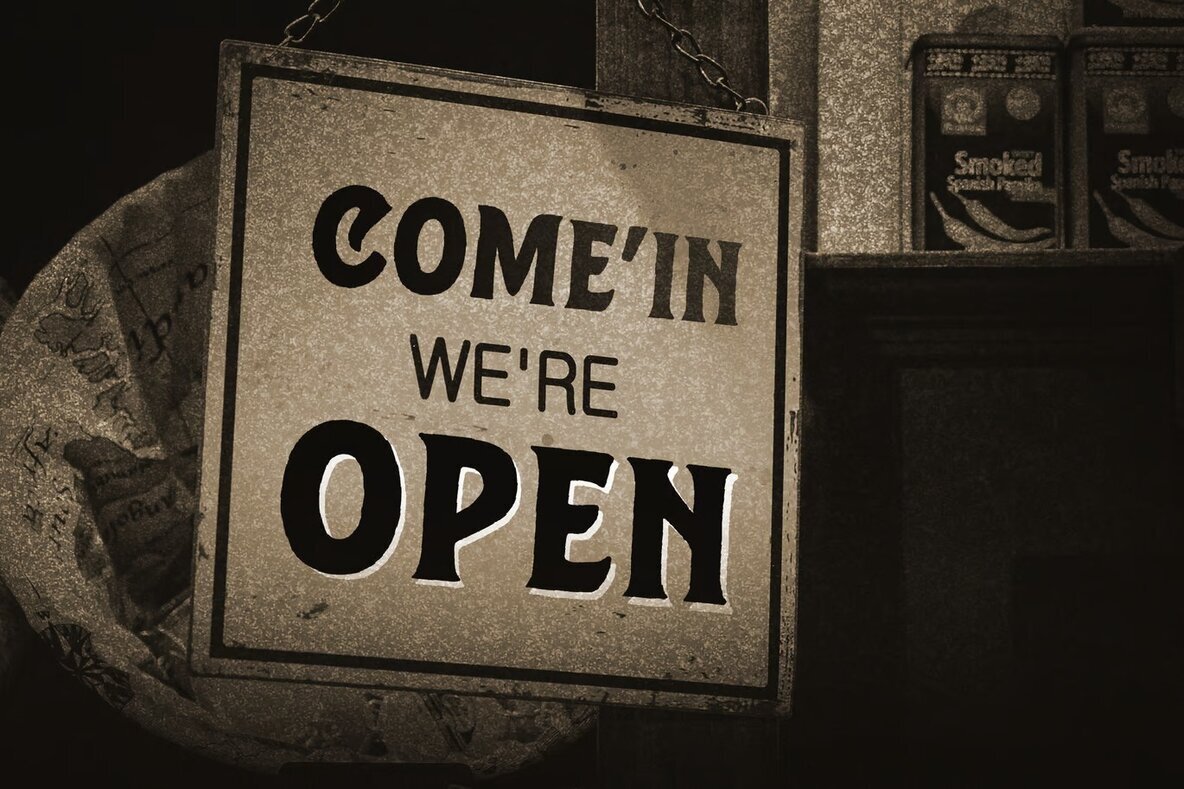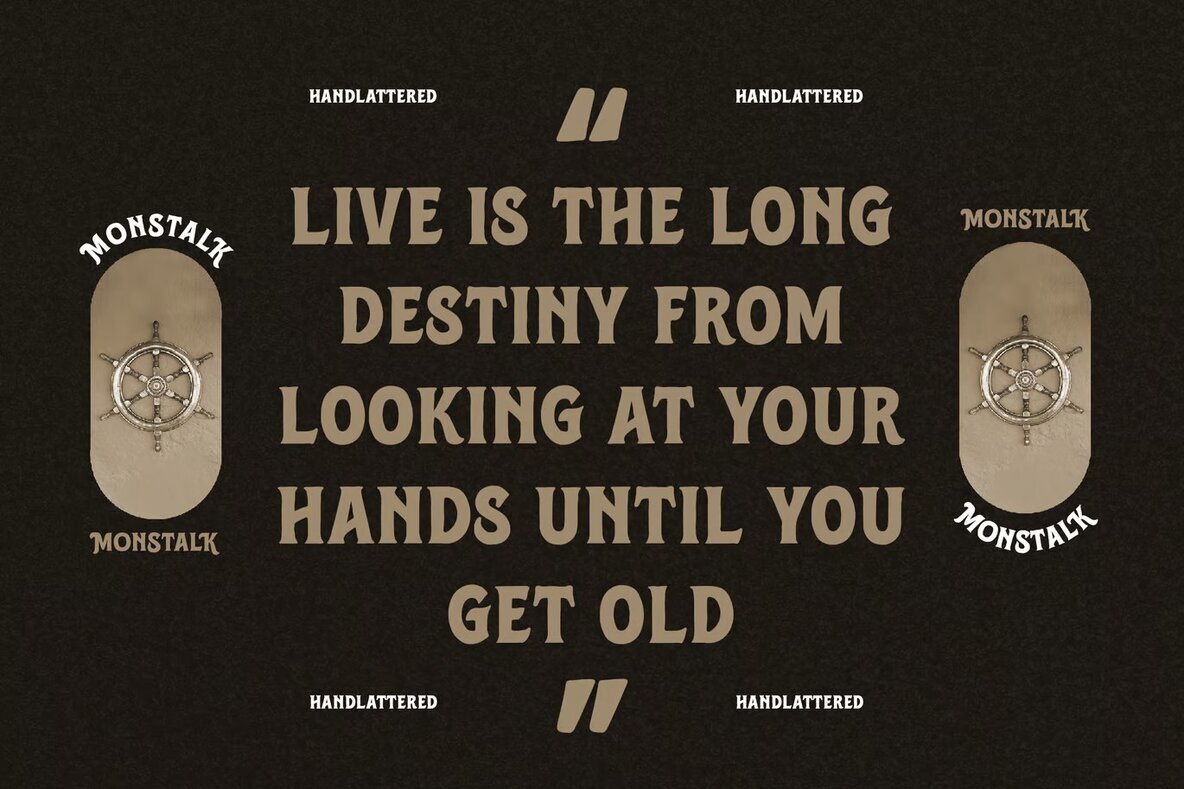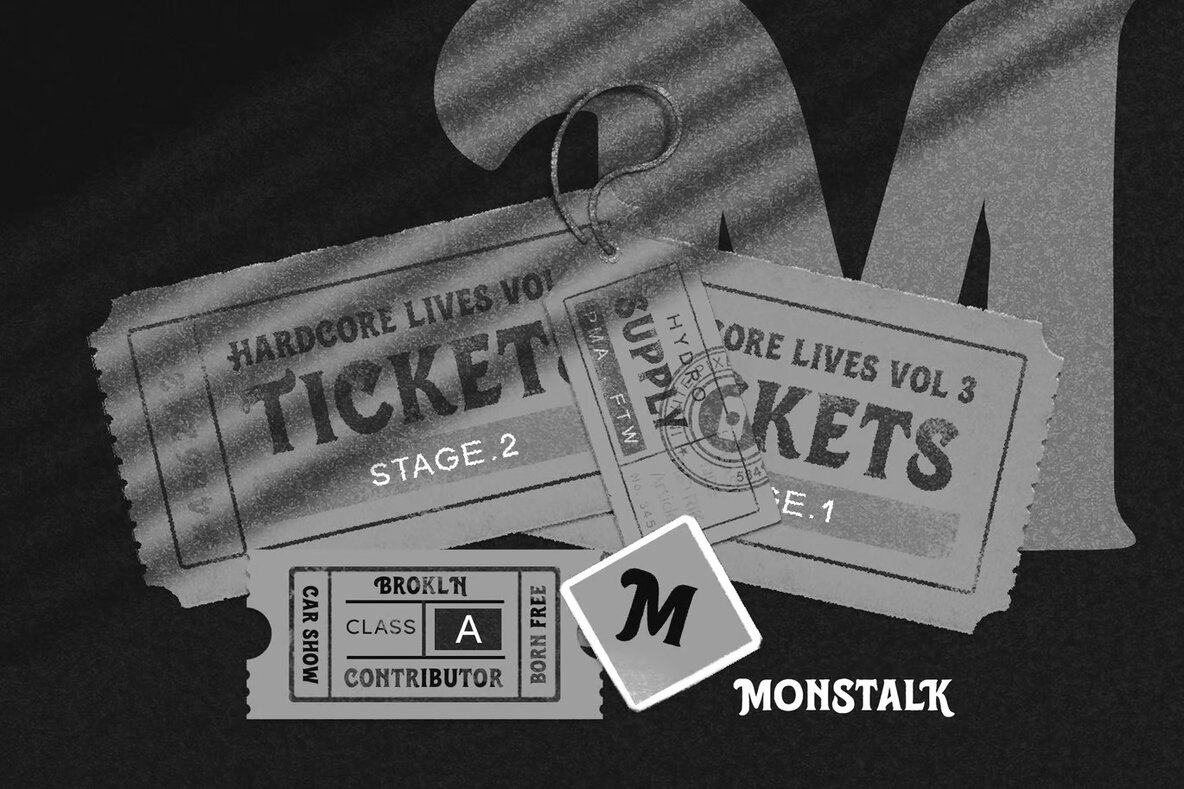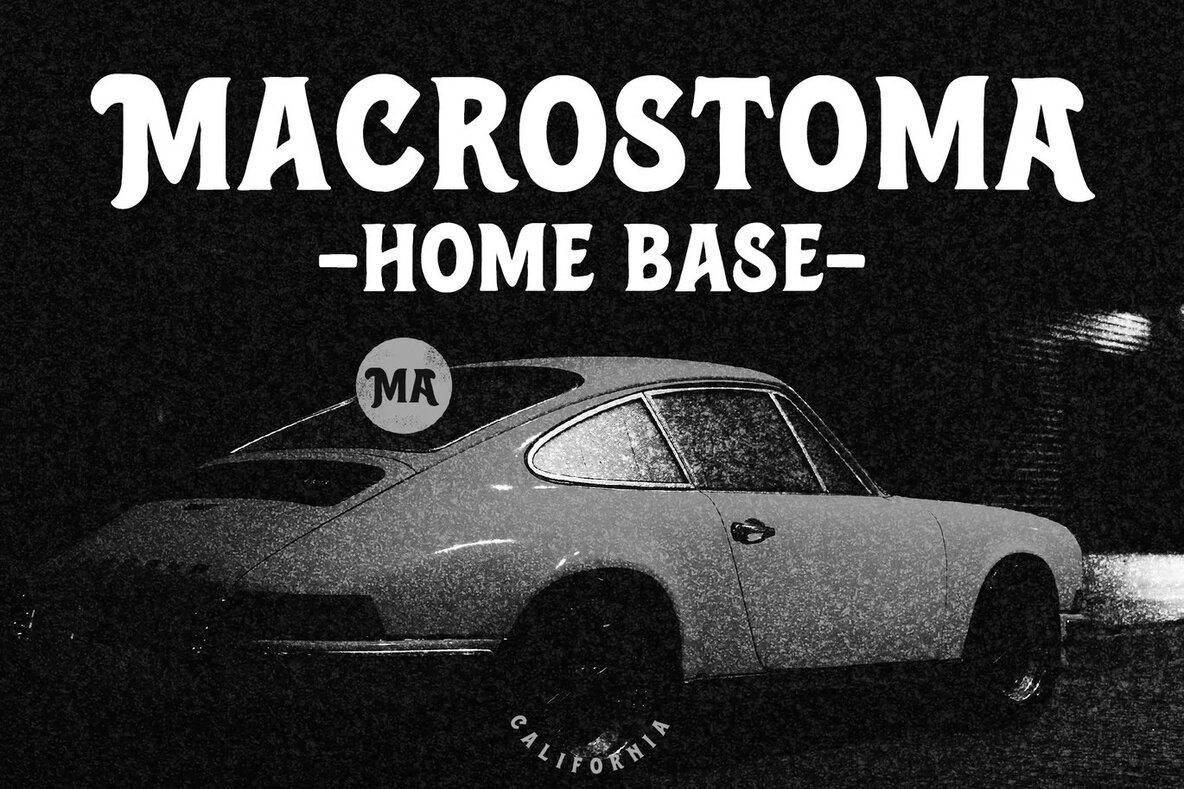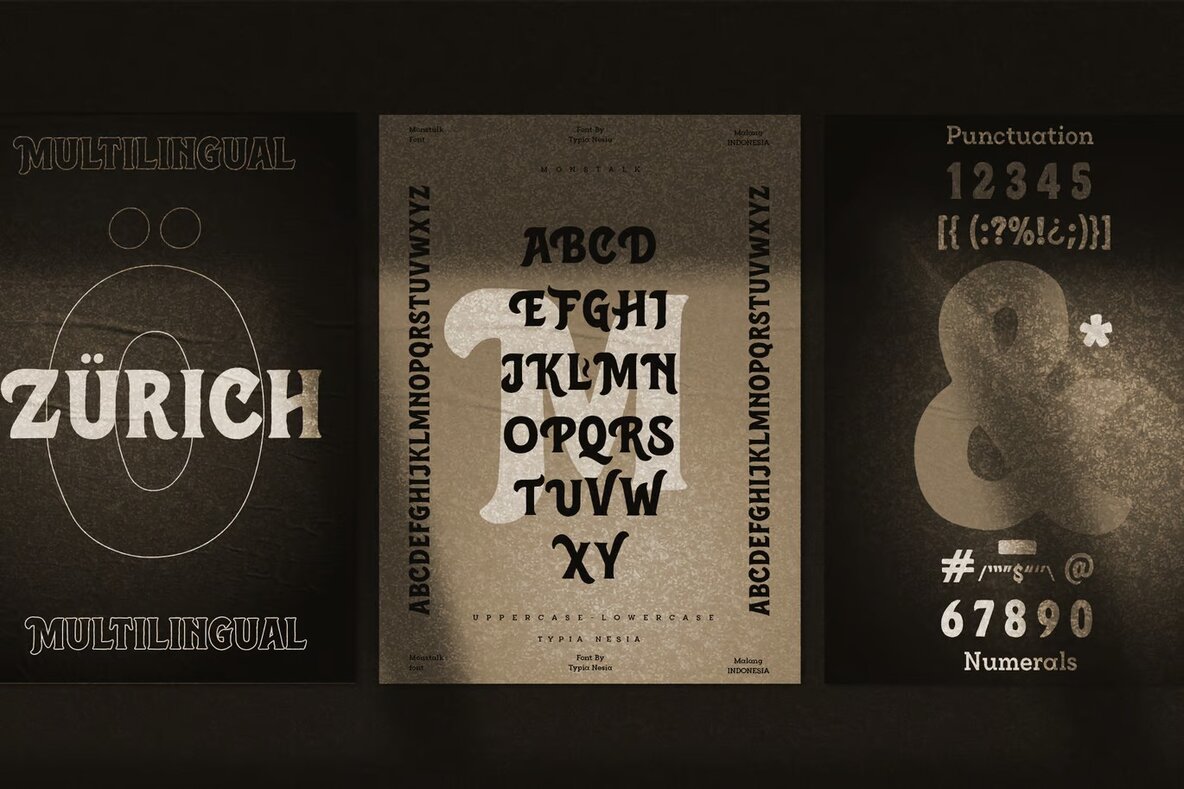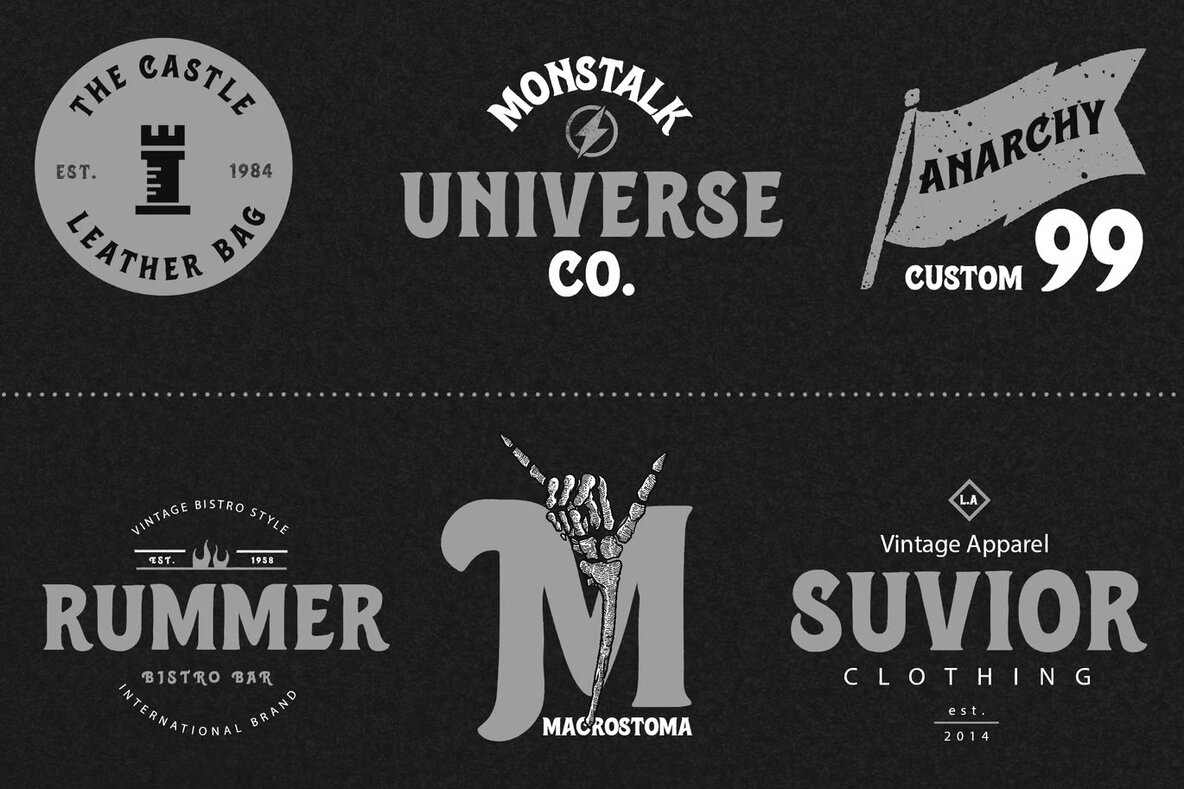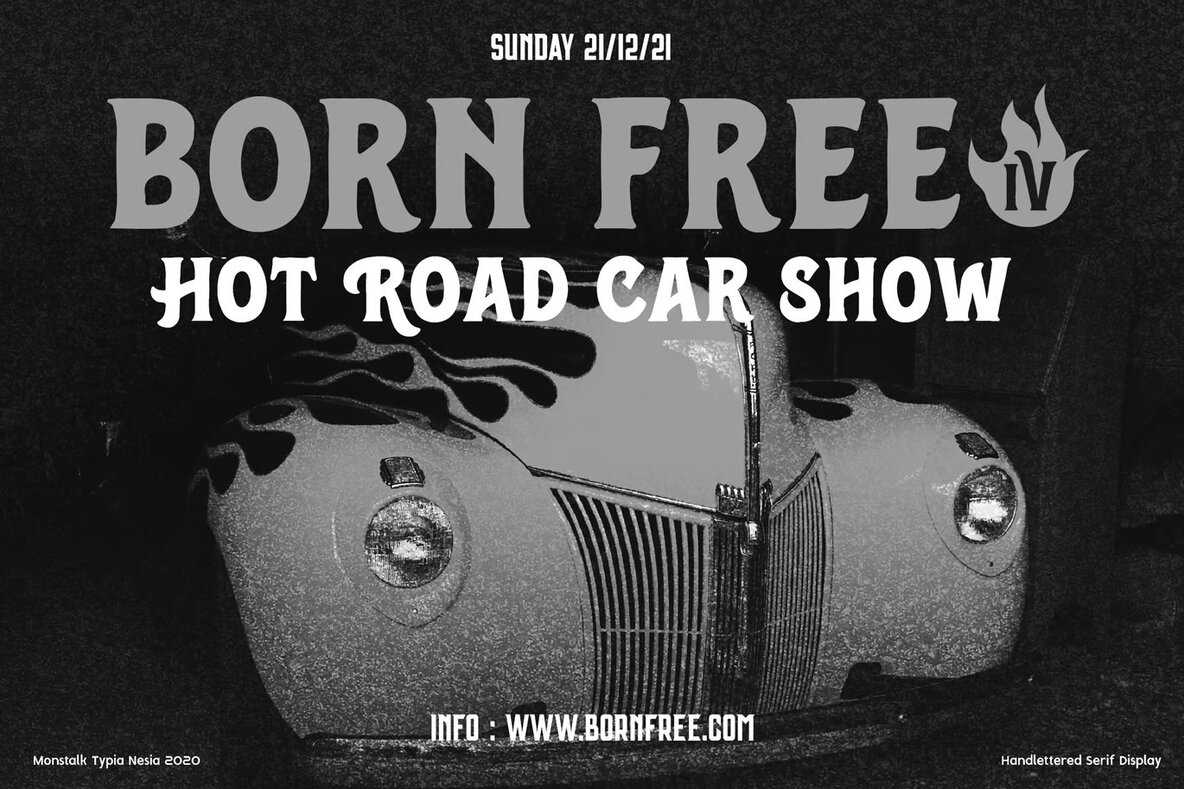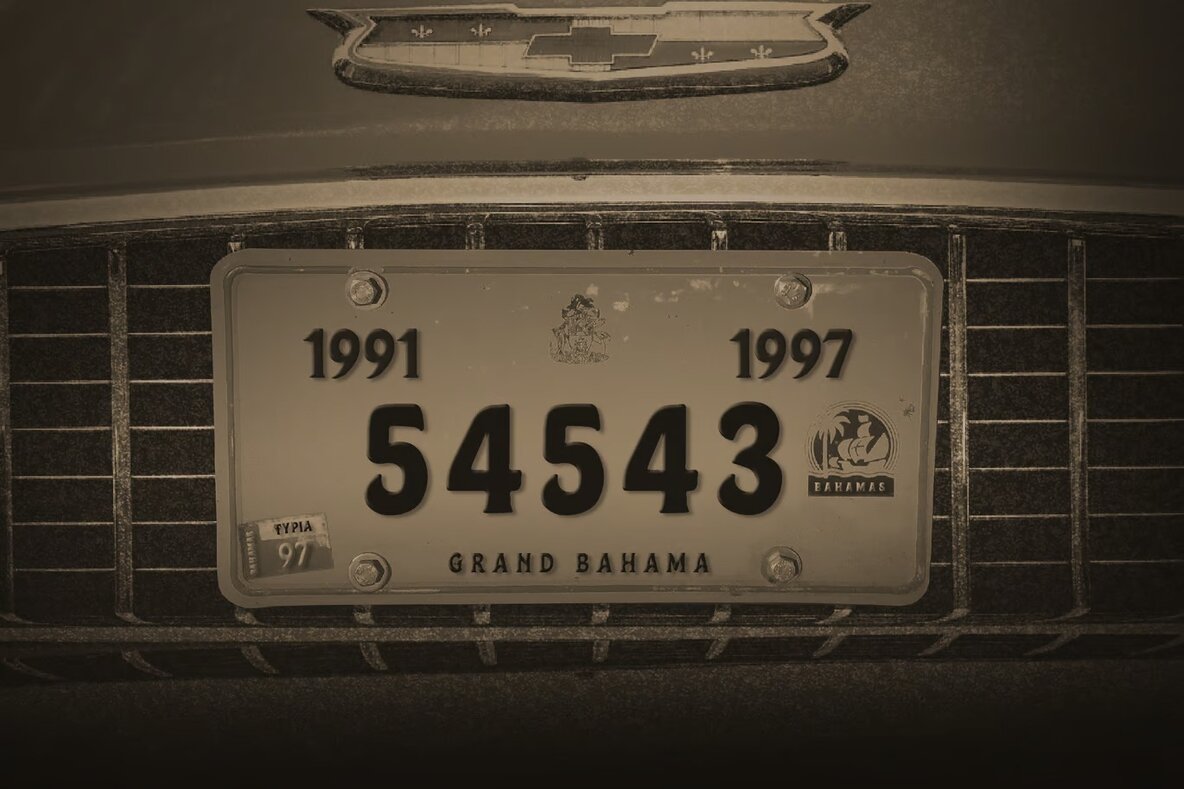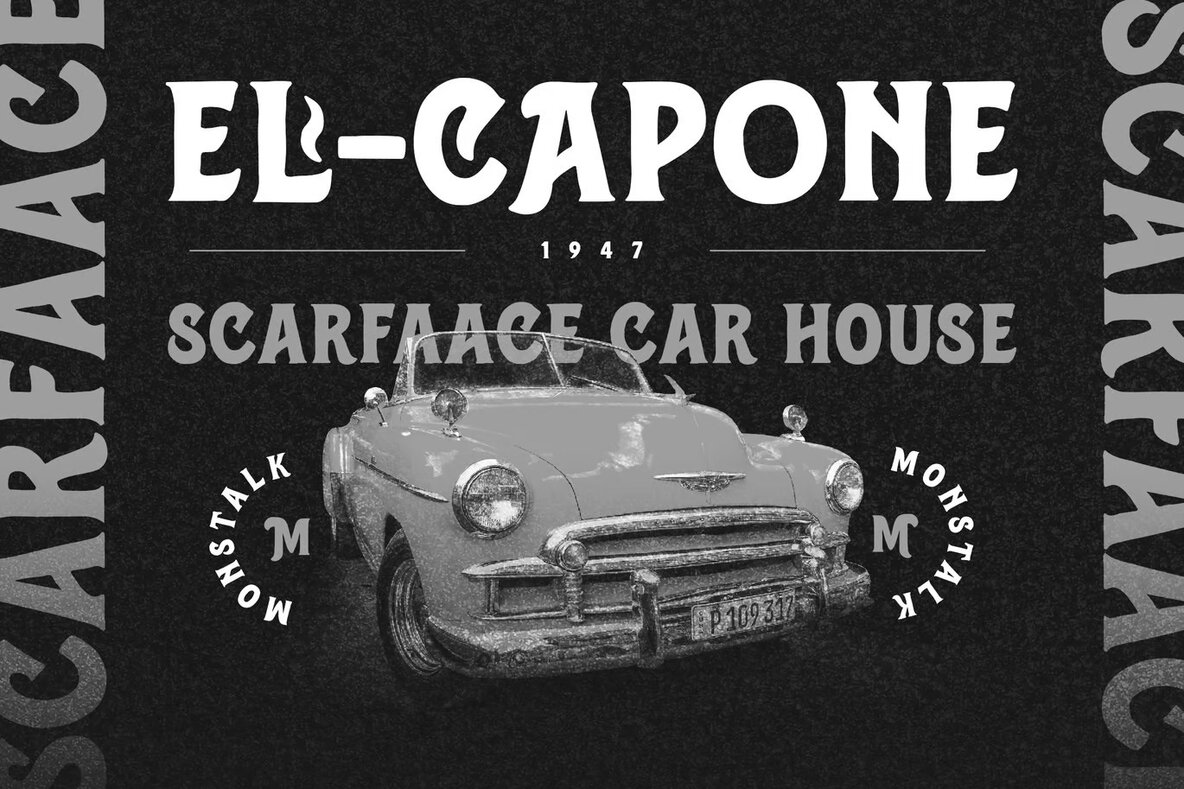
Monstalk Font
Monstalk Regular
Monstalk is an all-caps vintage display serif font, ideal for various creative ventures. Whether you're working on logo branding, adventure themes, or jungle and wild motifs, Monstalk offers a classic touch. It's well-suited for custom motorcycle and car projects, vintage industrial designs, as well as editorial and stationery designs.
Embrace its versatility in modern advertising, card invitations, art quotes, home décor, book covers, and titles. Perfect for special events and classic automotive themes, Monstalk excellently complements hand lettering and vintage typography projects. Its distinct serif style adds sophistication to any design, ensuring your work stands out with a traditional yet dynamic flair.